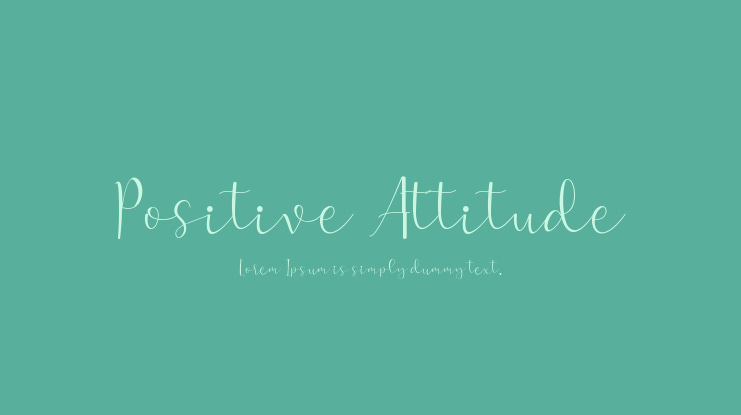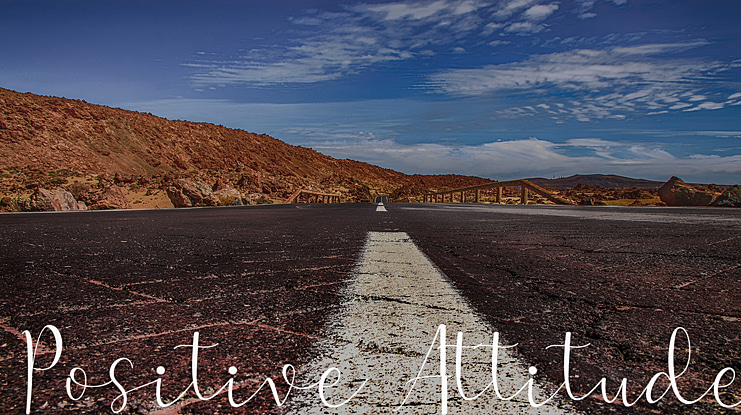
Positive Attitude Font
To be a success person we not only need a high IQ but also a
positive-attitude
introducing "positive-attitude": a modern calligraphy typeface by sandylukee. It is a script typeface with bouncing character that make your words looks great.